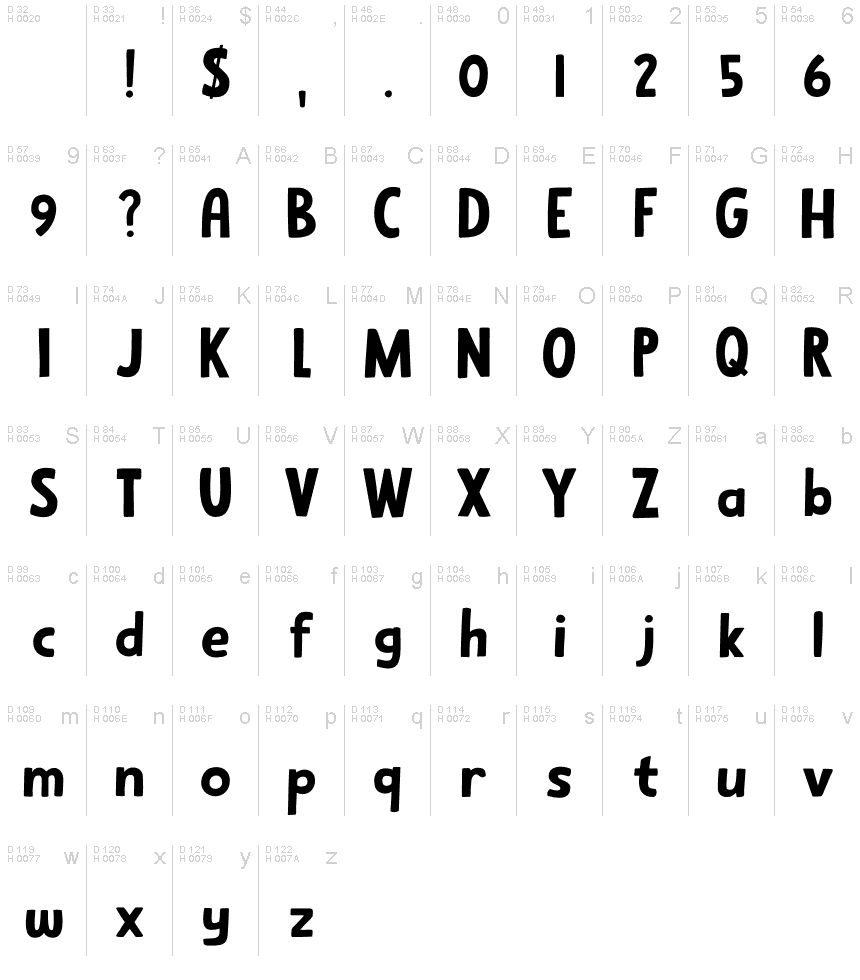
Sitting Duck DEMO Regular
Meet Sitting Duck, the bold and playful display font that is sure to bring a touch of whimsy to any project. Designed by D K, this comic-inspired typeface features thick strokes and rounded edges for a fun and approachable look. Perfect for posters, flyers, and children's book covers, Sitting Duck comes in a variety of weights including bold, making it suitable for headlines and titles that demand attention. Let Sitting Duck waddle into your design projects and add a splash of character to your creative endeavors.